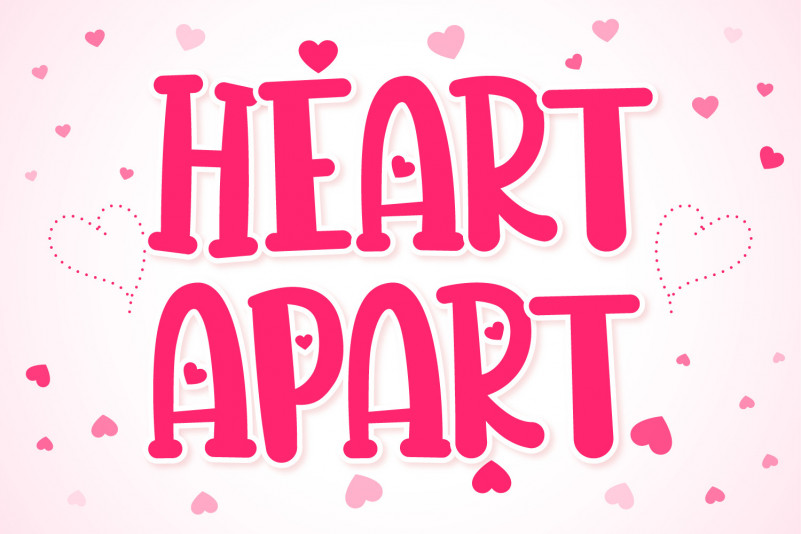
Heart Apart Font
Heart Apart Display Font
This is a fun, thick lettered and casual display font. It works wonderfully when added to romantic designs, children games or pretty much anything that requires a sweet touch.